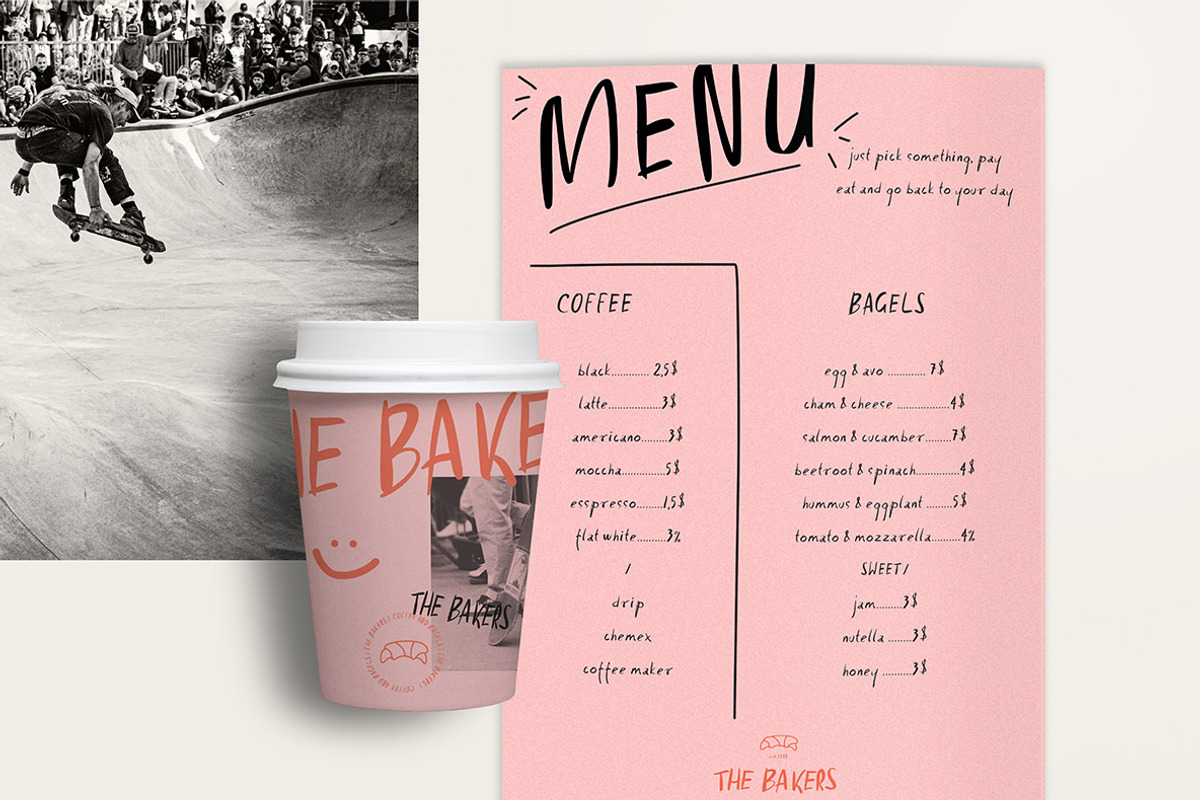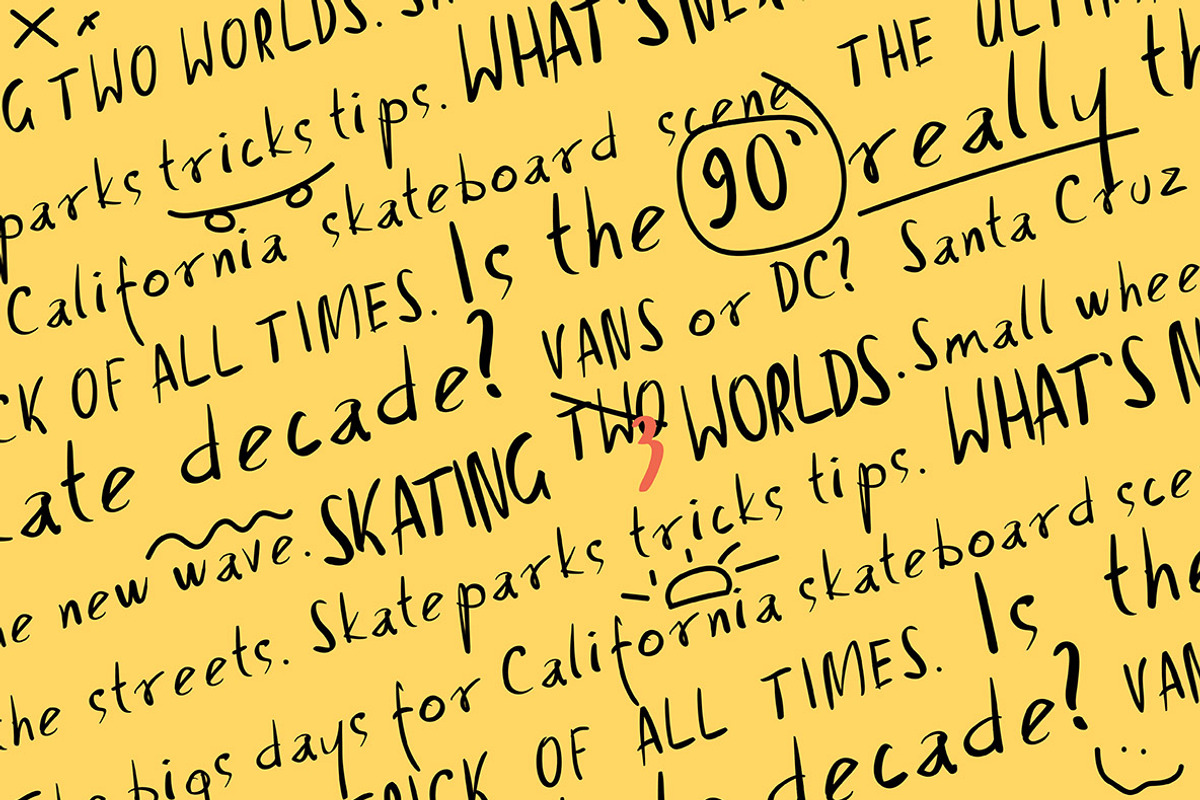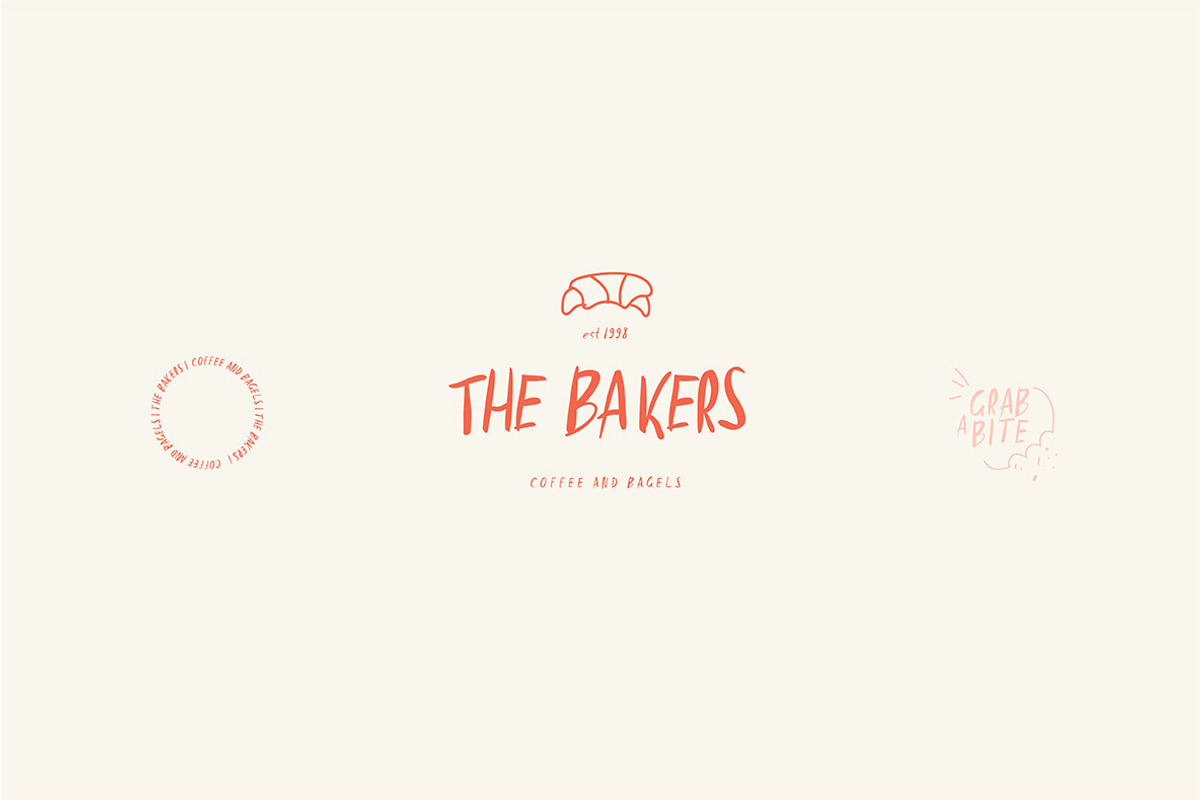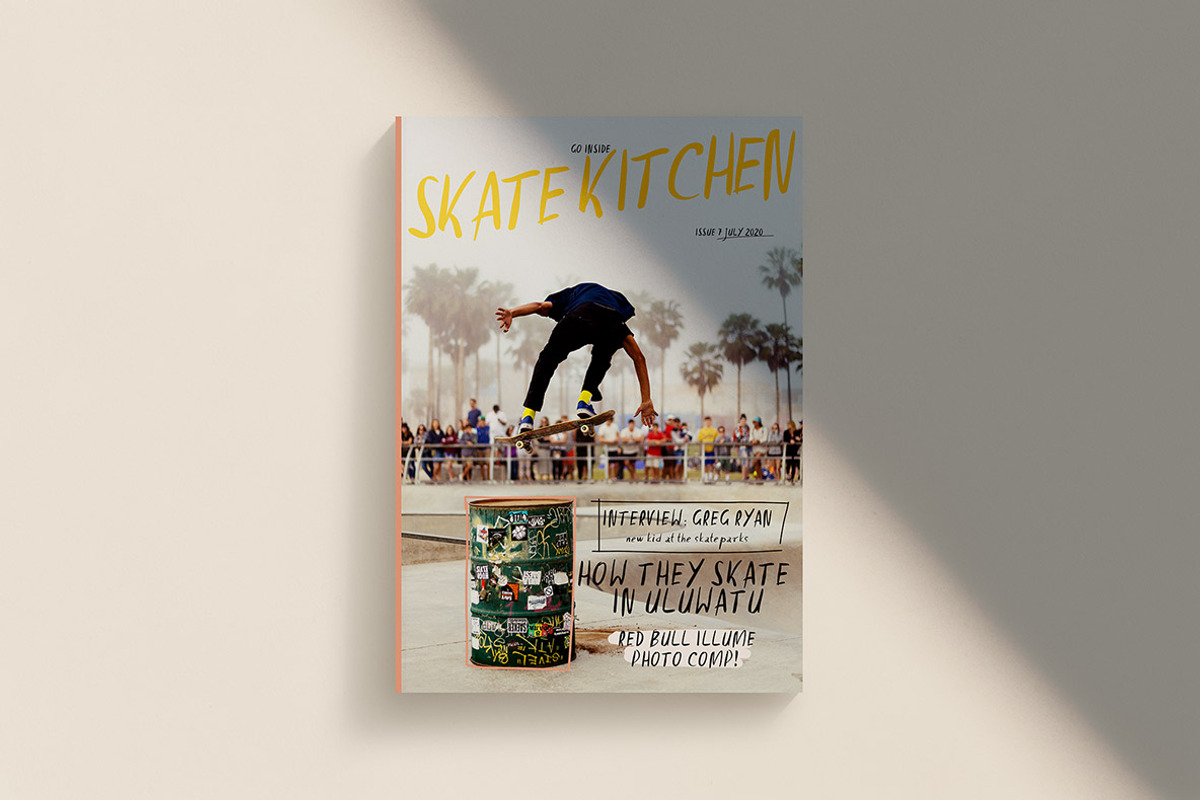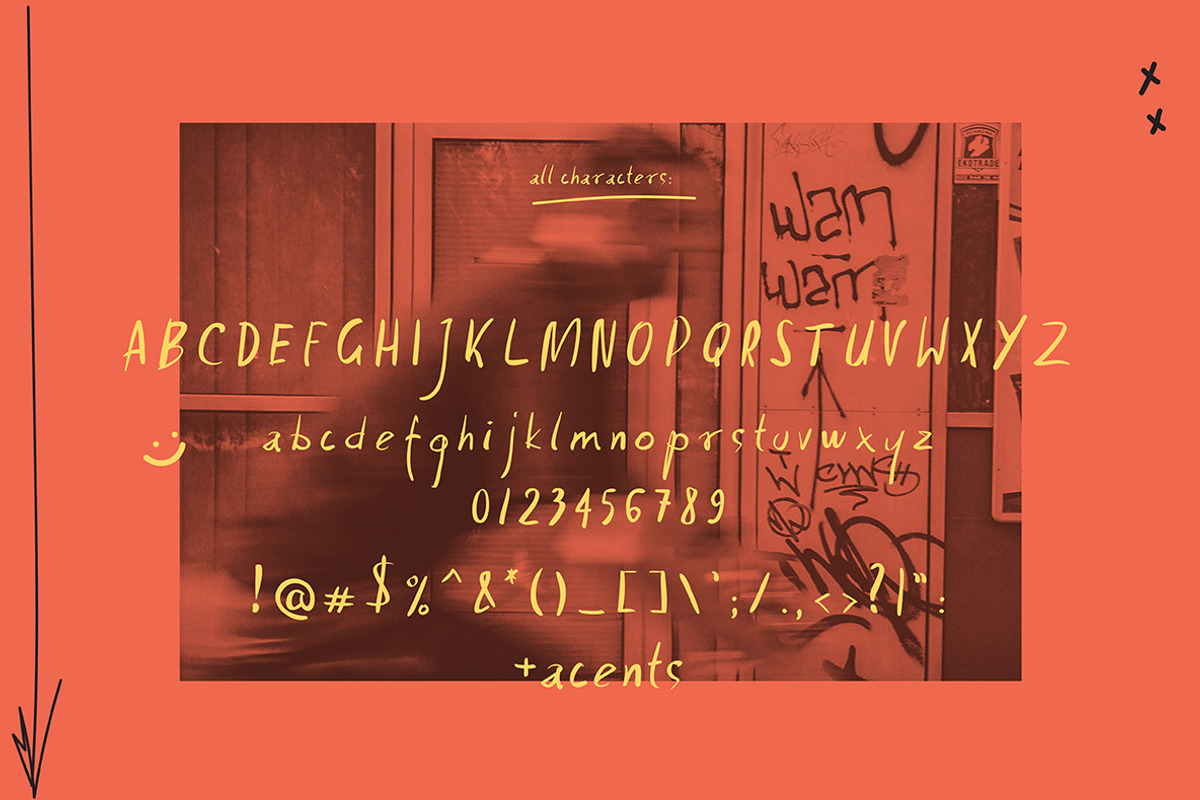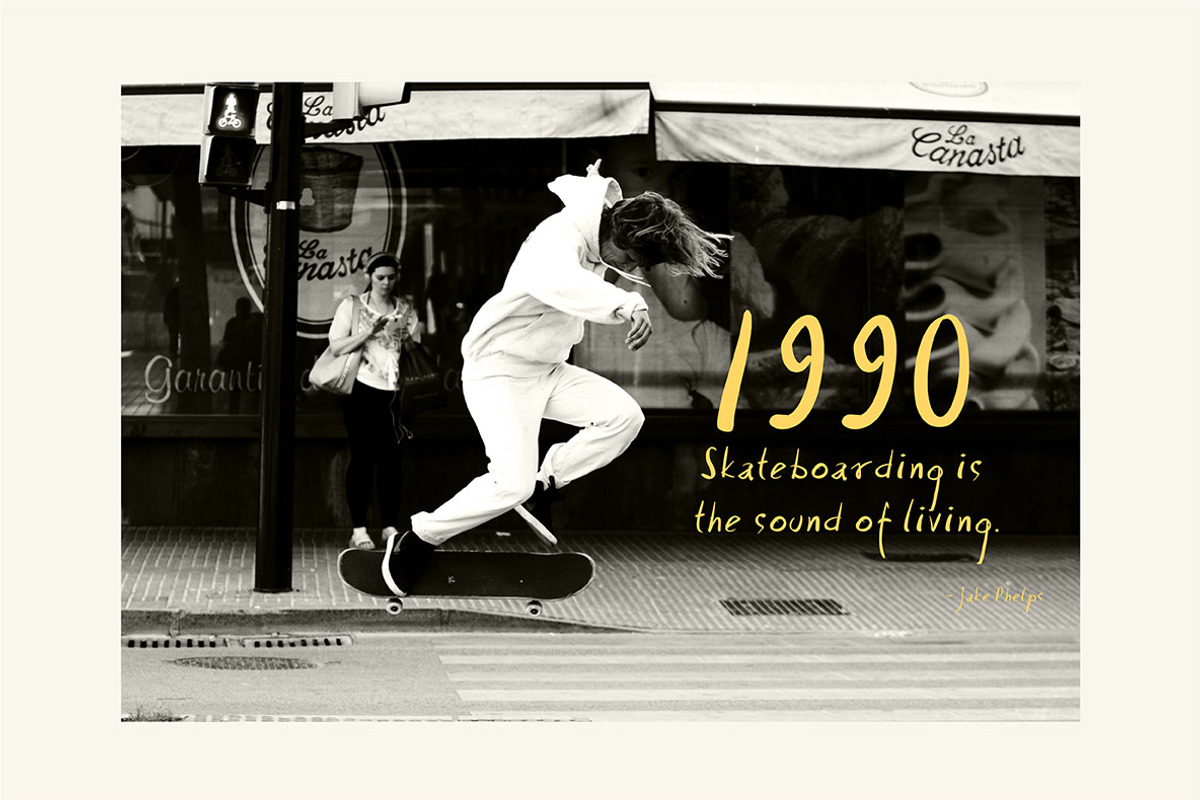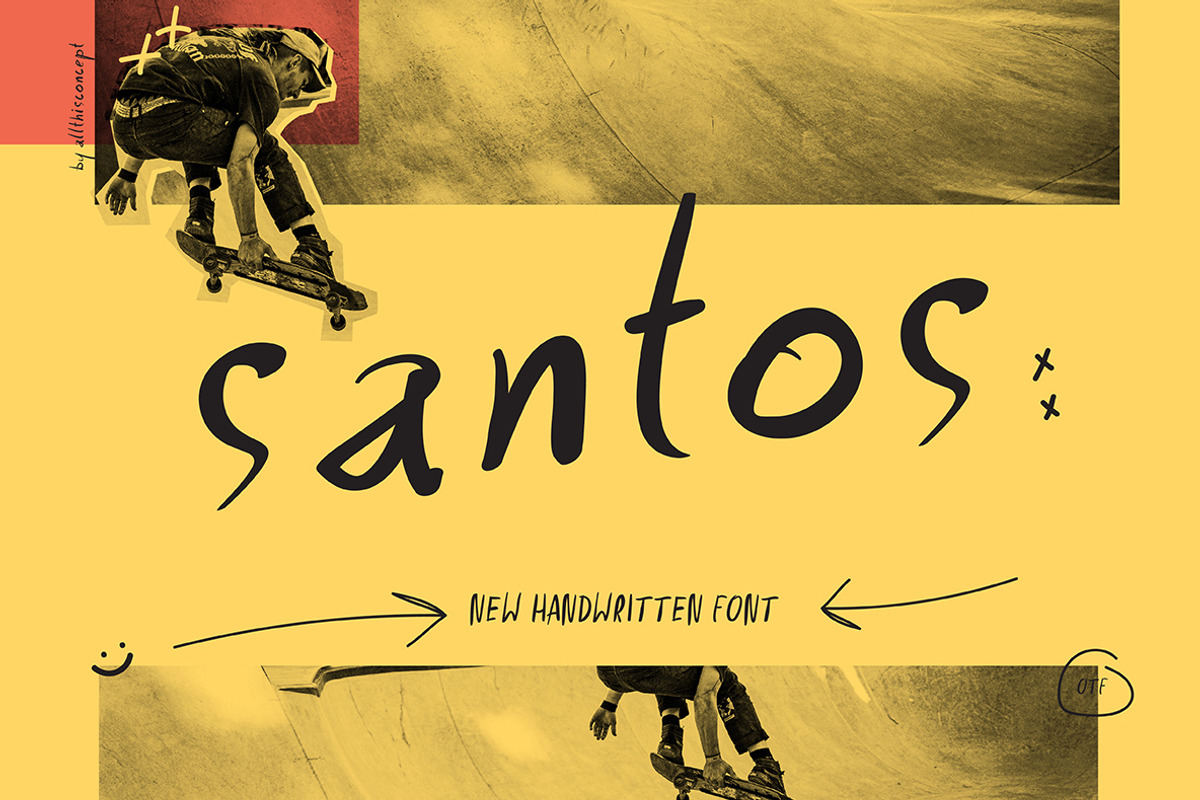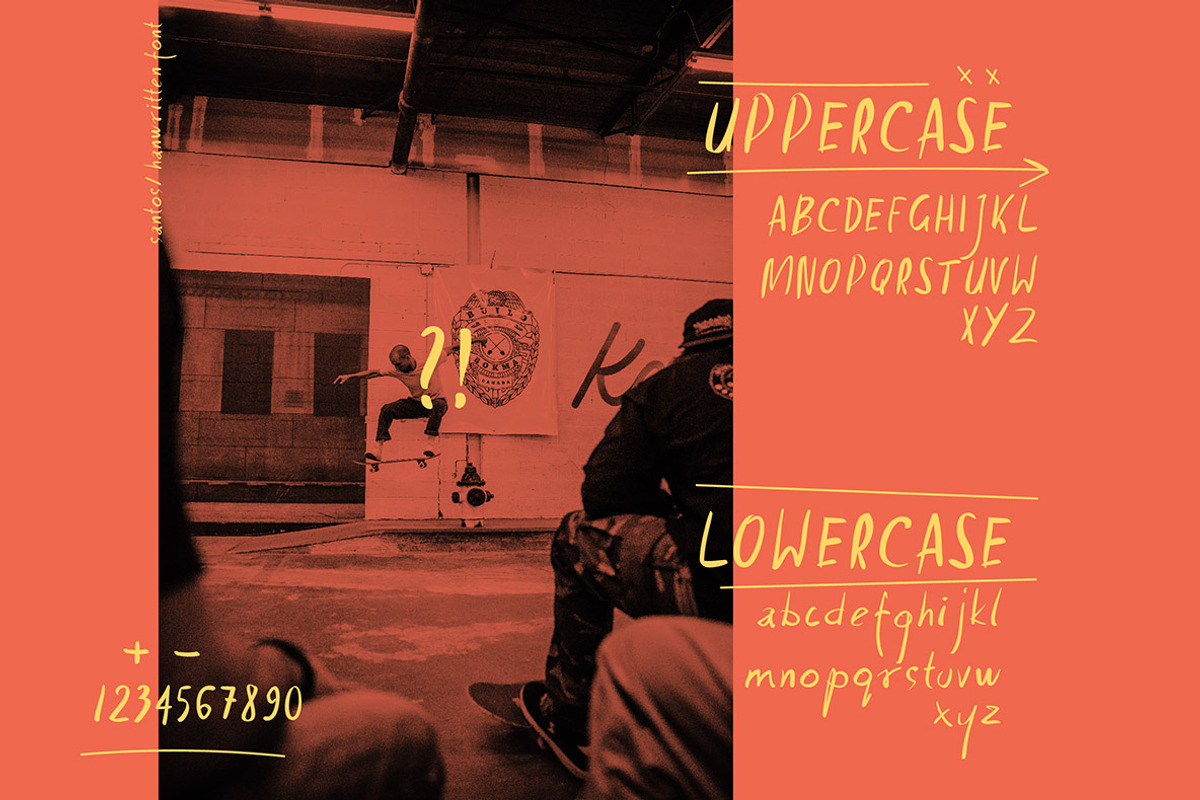
SANTOS | Handwritten Font
Uppercase letters, numbers, & extended punctuation
Lowercase letters, numbers, & extended punctuation
Santos is a really cool font, perfect for creating logos, posters, magazines or quotes. It adds street character to any kind of project or design.
It's super effortless so you can add your own handwritten elements anywhere you need.
SANTOS | Handwritten Font by All This Concept fits naturally into Branding, posters, packaging, typography.